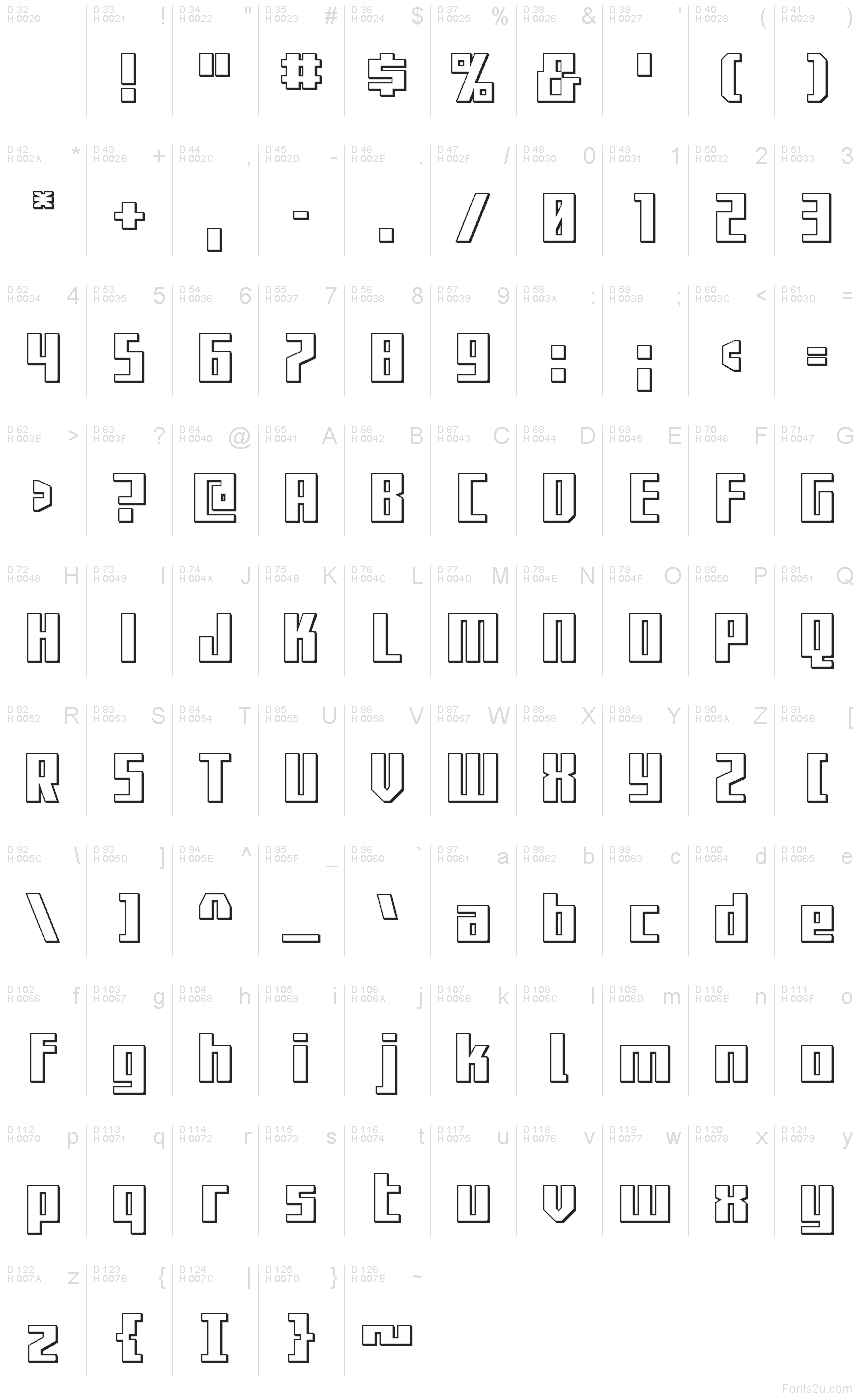
Capitol City 3D Straight
Capitol City 3D Straight font, an Iconian Fonts creation, bridges the past and future with a dynamic retro aesthetic. This condensed bold techno display typeface draws inspiration from geometric structures and mechanical influences. Each conforming character stands out as a tribute to architectural marvels designed atop futuristic grids.
This free visual experience enhancer can headline entertainment posters, sports magazine covers, album art for music bands, or booklets for video games. Use it on thrilling children’s books covers, horror story titles, or otherwise important headlines which need that extra something special to stand out in today’s communications environment.